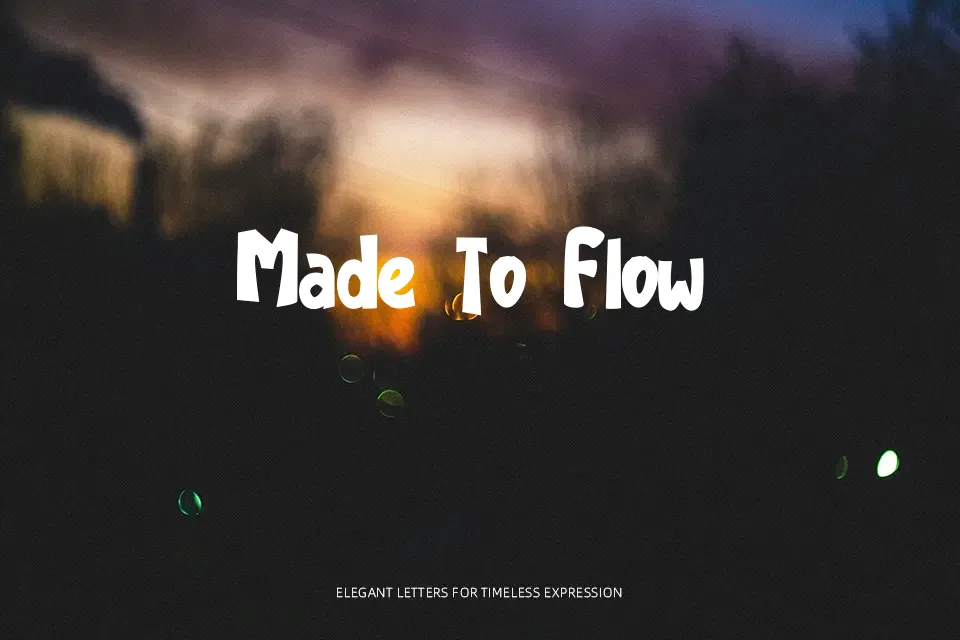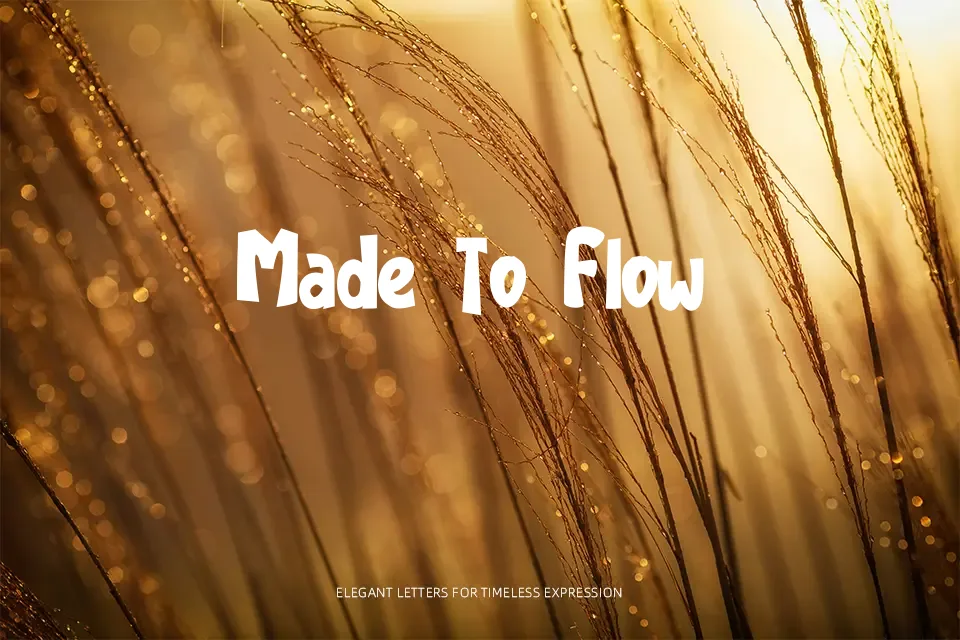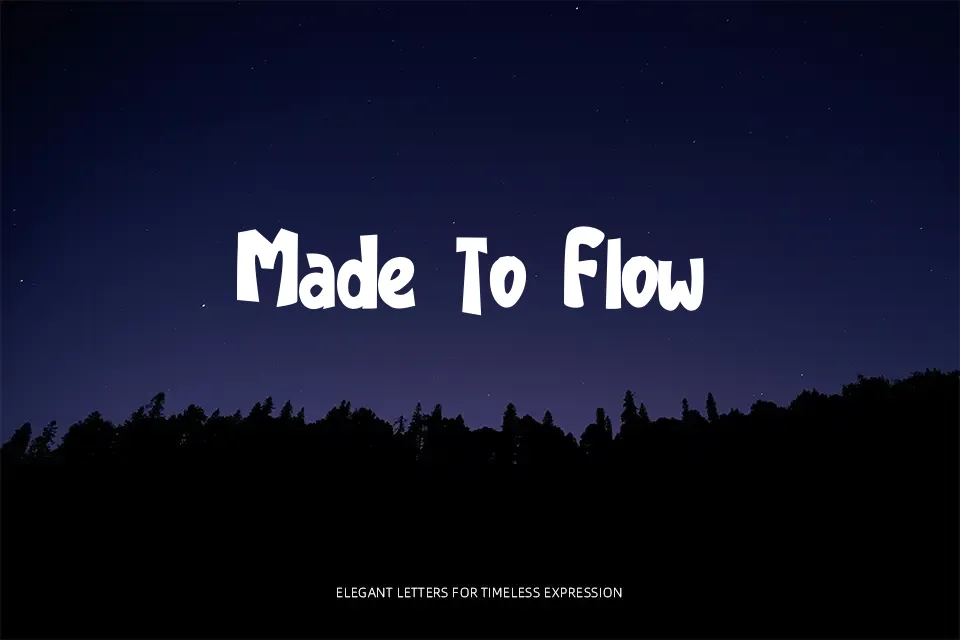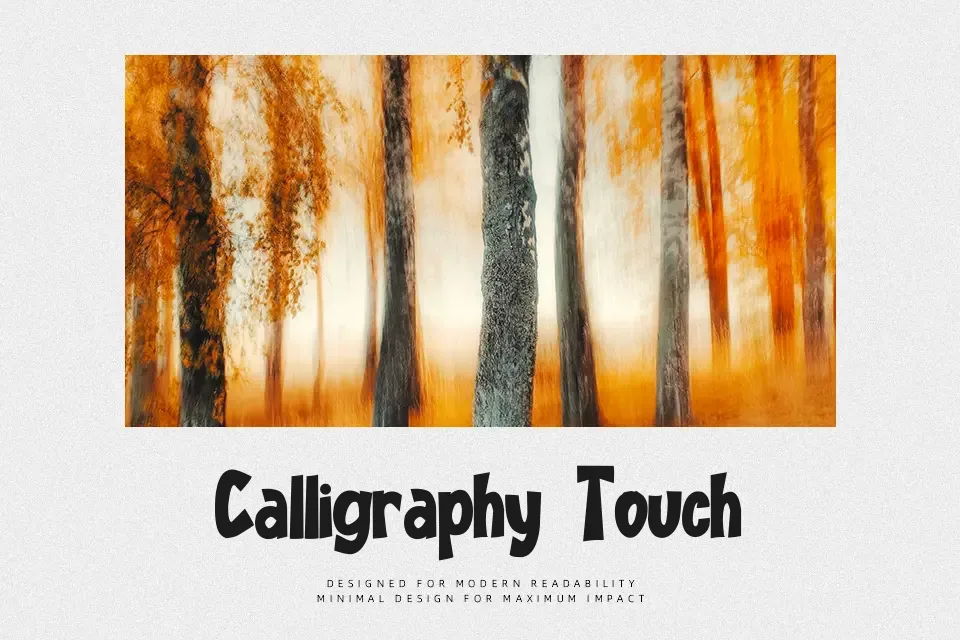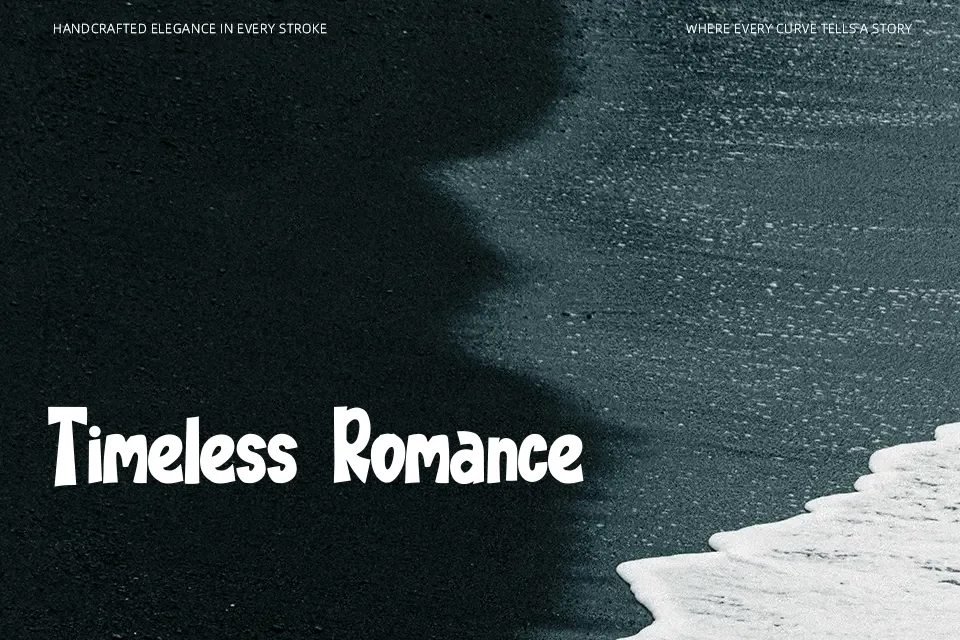
Birtlove Font
Birtlove Font brings a delightful handwritten charm through its thick brush strokes and intentionally irregular character structure. The letterforms feature a dynamic, bouncy baseline paired with exaggerated swashes, giving the overall design a casual yet highly energetic aesthetic. Compared to traditional formal calligraphy, this typeface feels much more relaxed and modern. It shines in applications that need a customized, organic voice, such as festive greeting cards, artisan food packaging, or vibrant digital quotes. The natural spacing and sweeping curves provide excellent flow for short headlines. However, due to its heavy weight and highly decorative nature, Birtlove struggles with readability when scaled down for dense body copy or small interfaces, where a simpler alternative would be much more appropriate.
– Bold typographic logos for creative brands
– Romantic or festive event invitations
– Expressive social media quote graphics
– Artisanal or boutique product packaging
– Long paragraphs of small body text
– Corporate or highly formal documents
– Minimalist digital user interfaces
Perfect for invitation, logo, and packaging, with a creative and brush style.